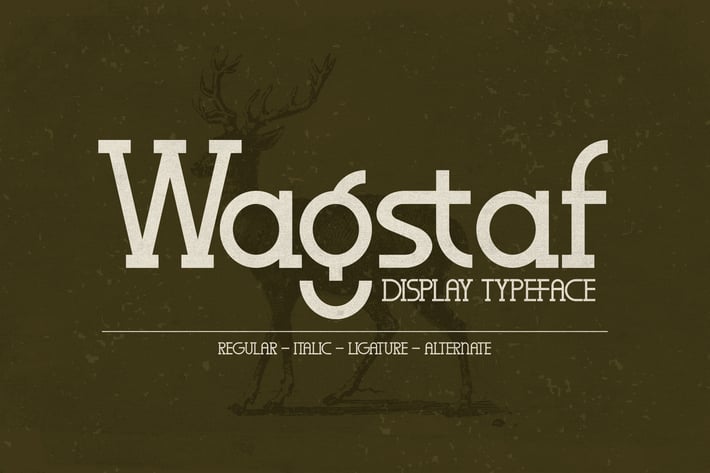
Wagstaf Display Typeface Font
Wagstaf is a bold display typeface with a rugged, vintage-inspired character that feels strong, confident, and timeless. Its sturdy letterforms paired with subtle serif details make it ideal for statement headlines, classic branding, and designs that need a masculine, heritage-driven presence.
Bold display serif with a strong vintage feel
Clean yet distinctive letterforms for impactful titles
Includes ligatures and alternates for typographic flexibility
Excellent readability for headlines and large-scale text
Vintage & heritage branding
Posters and bold headlines
Logo design & brand marks
Editorial layouts
Apparel, labels, and merchandise
Strong, timeless, and full of character — a display typeface built to stand out with confidence.*